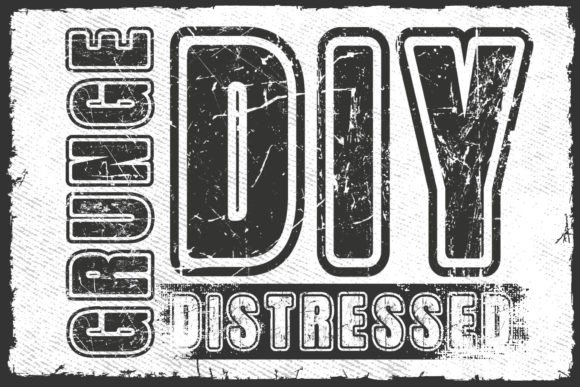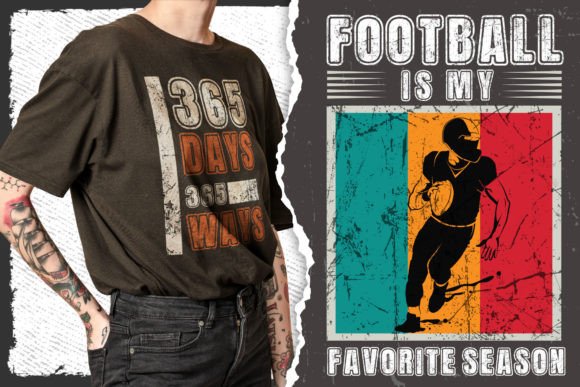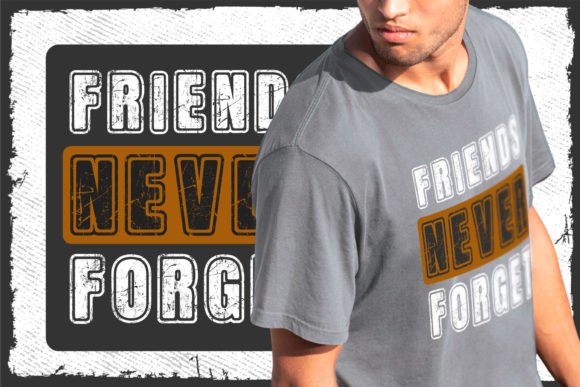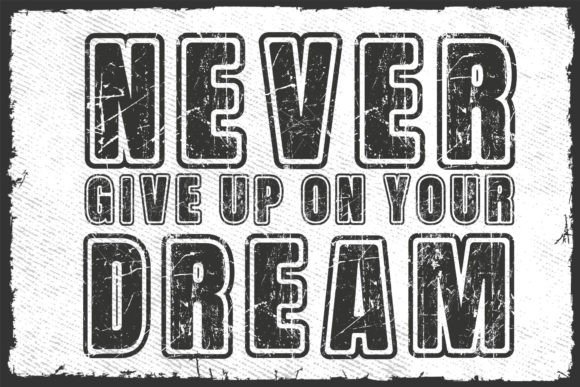
Grunge Diy Distressed Font
About the Grunge Diy Distressed Font
Experience the unique personality of Grunge Diy Distressed Font, a font designed for impact. Grunge DIY Distressed is a vintage, retro grunge color font.  Add it confidently to your projects, and you will love the results.
This font’s distressed aesthetic works best for headlines, short text blocks on posters, and branding applications where a vintage or rebellious feel is desired. It’s ideal for projects targeting a younger demographic or those with a DIY, punk, or retro theme. Avoid using it for body text or longform content; its highly textured nature hinders readability in extended passages. Also, it’s not suitable for user interfaces (UI) due to potential legibility concerns.
For effective pairings, consider pairing Grunge DIY Distressed with a clean sans-serif like Montserrat for contrast, or a geometric sans-serif like Futura for a modern edge. A classic serif like Garamond can add a layer of sophistication, while a playful script font could enhance its informal character depending on the design’s purpose.
The font’s core personality is bold, rebellious, and unapologetically vintage. Its distressed texture conveys a sense of rawness and authenticity, making it a strong choice for projects that aim for a gritty, DIY aesthetic.